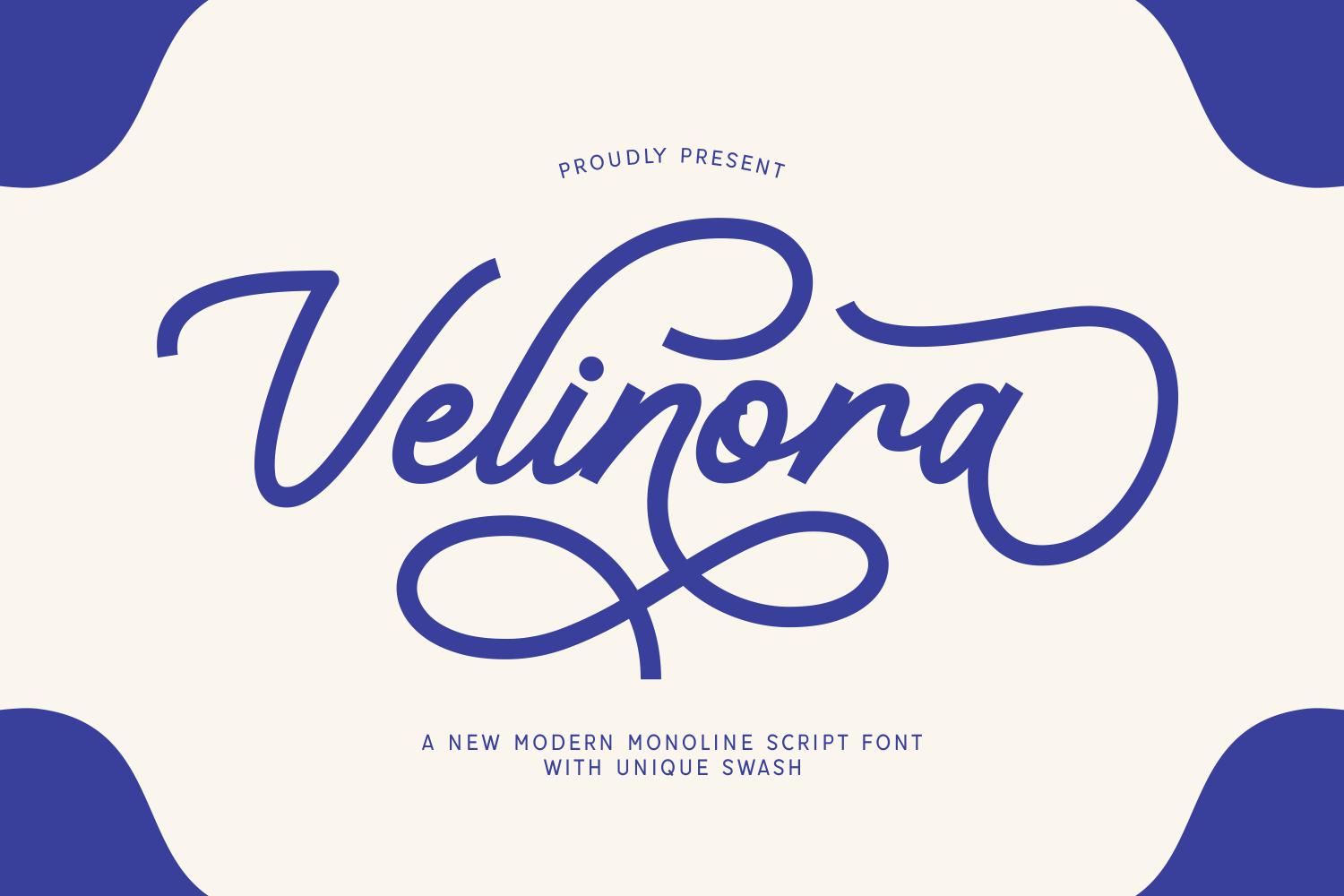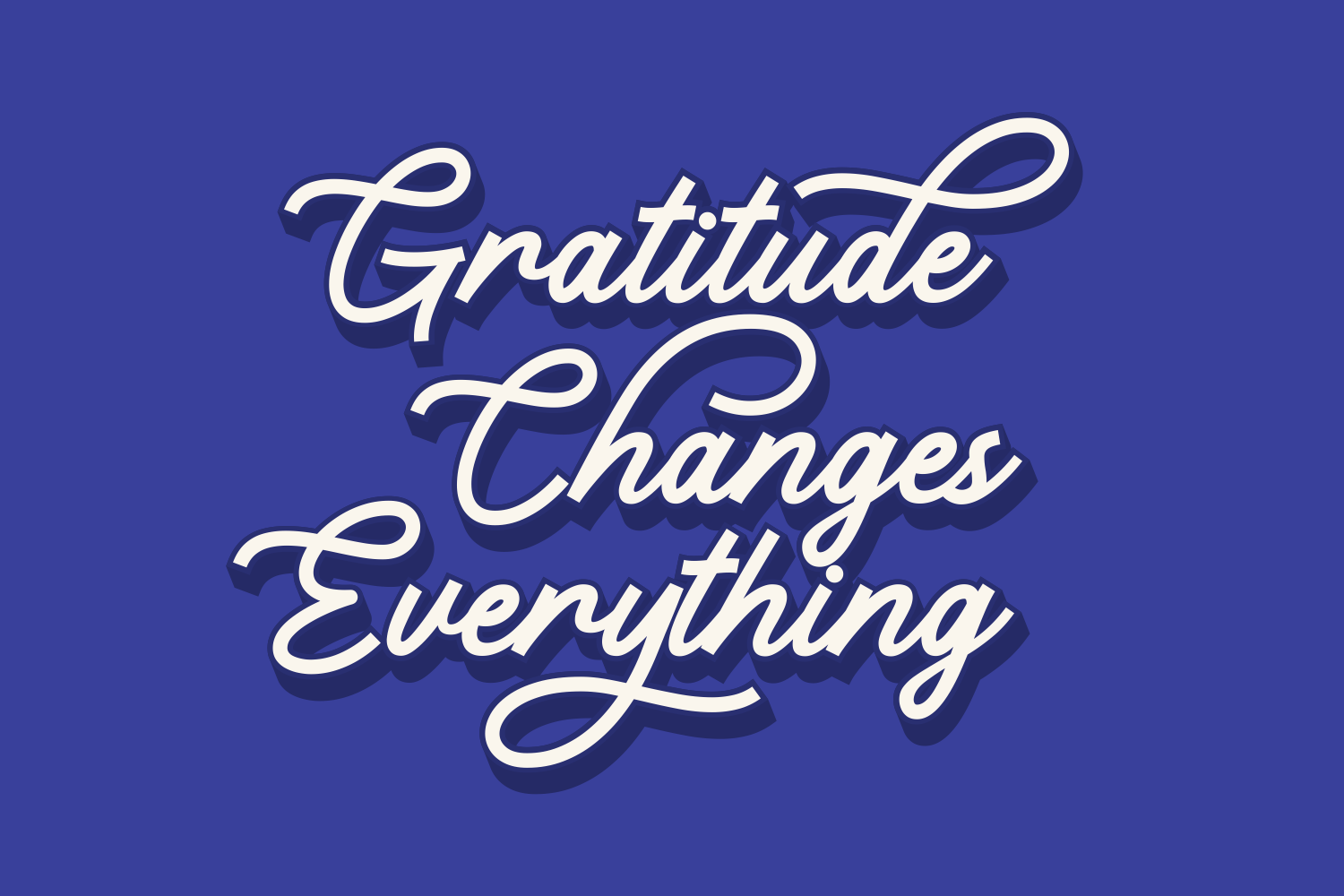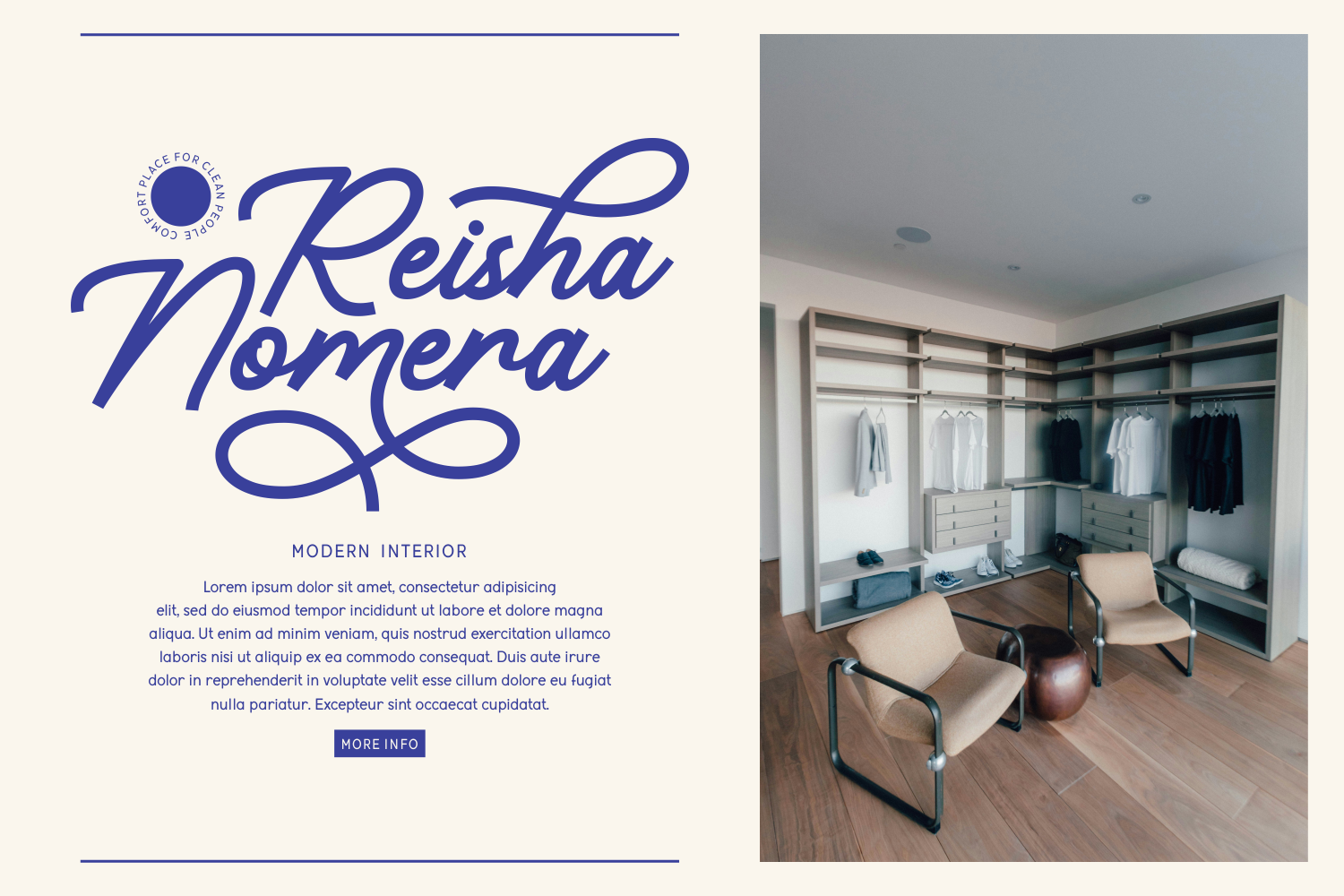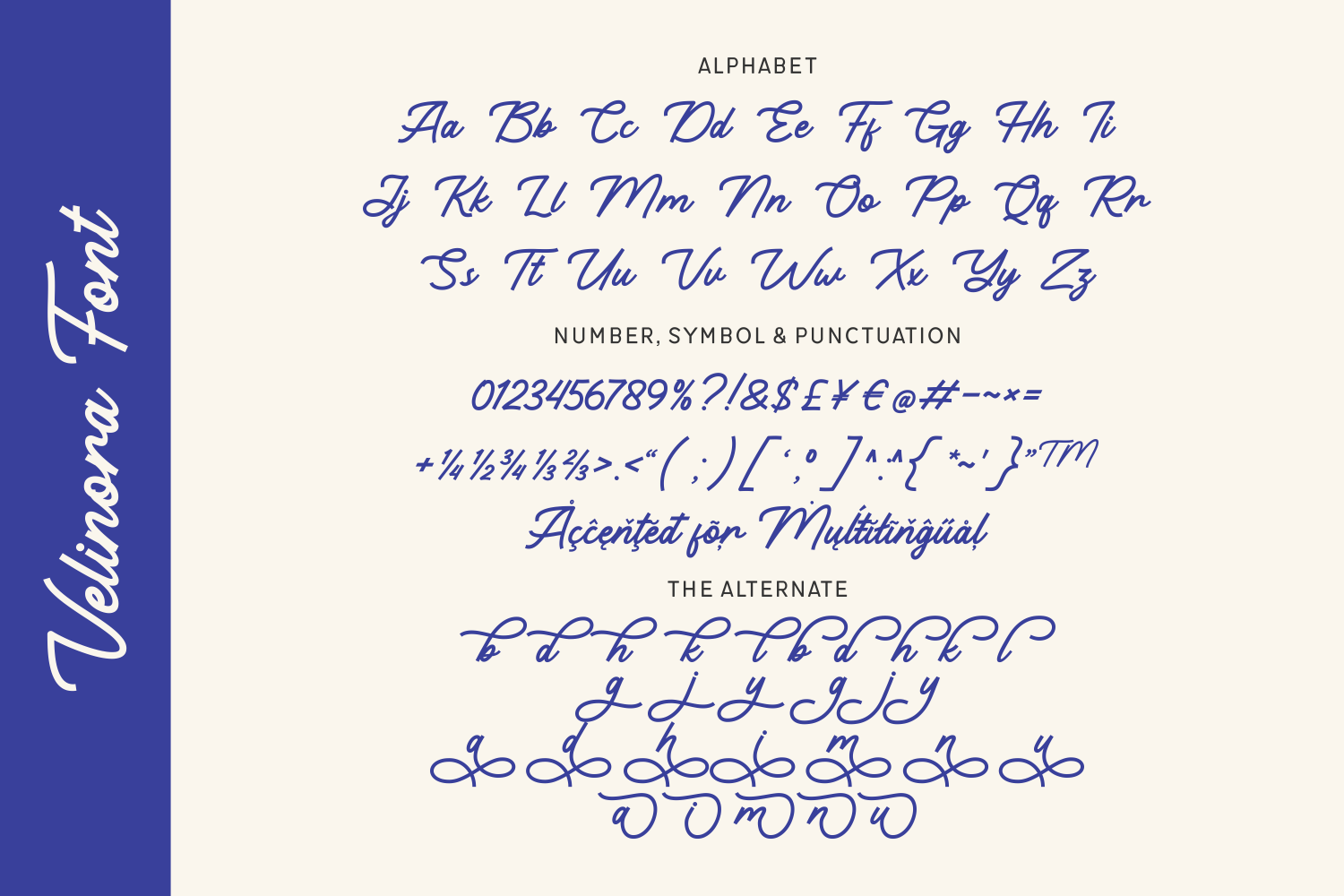
Velinora is a sleek, modern monoline script font that blends classic calligraphy charm with contemporary finesse. With smooth, fluid strokes and extended swashes, Velinora exudes confidence and flair, making it ideal for impactful branding and expressive typography.